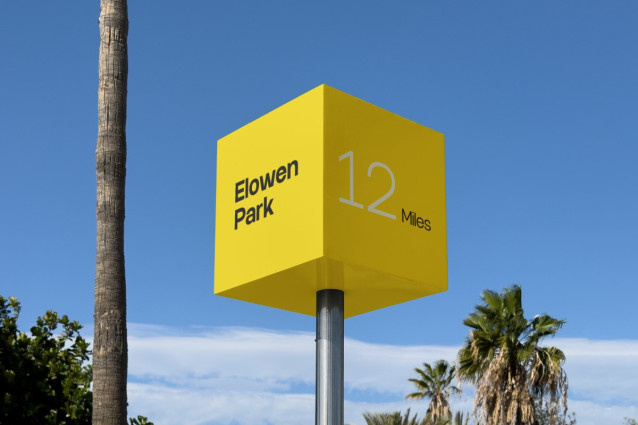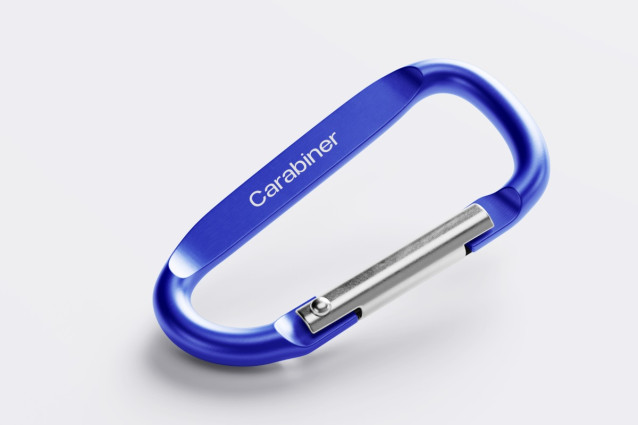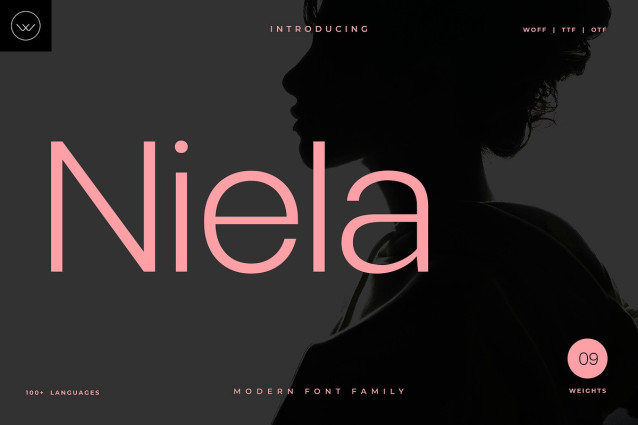
Niela Font
Niela Font is a modern display font shaped with elegant, flowing curves and a clean visual rhythm. With nine flexible weights, it works beautifully for bold headlines, stylish logos, striking posters, and any design that needs strong visual presence. Its soft, refined details bring a sense of sophistication, making it a great choice for designers who want a display typeface that feels both modern and expressive. Whether you’re building a brand identity or creating eye-catching promotional work, Niela adds clarity, charm, and a polished contemporary feel.